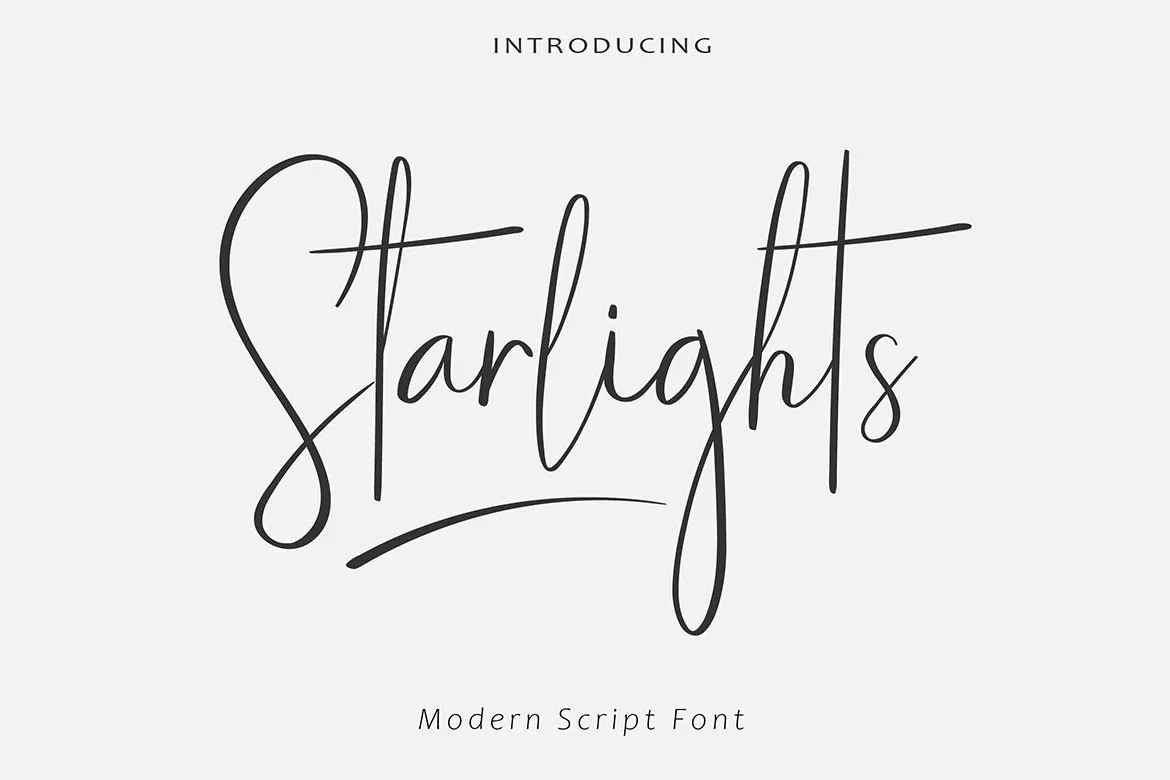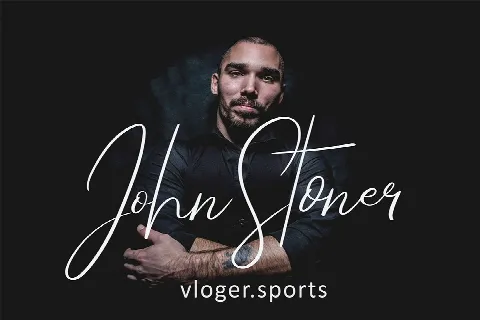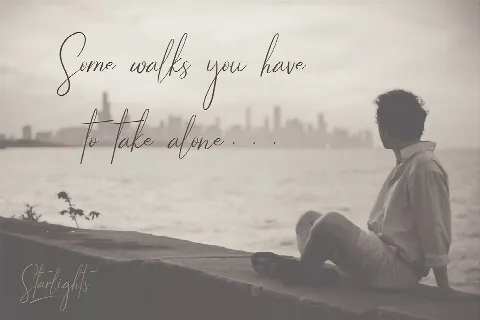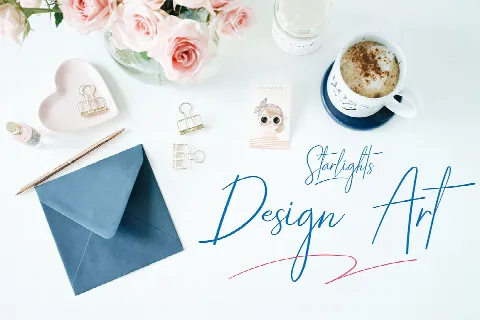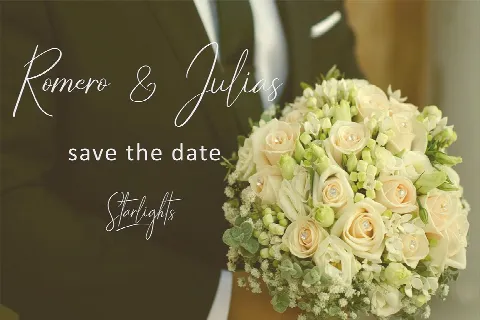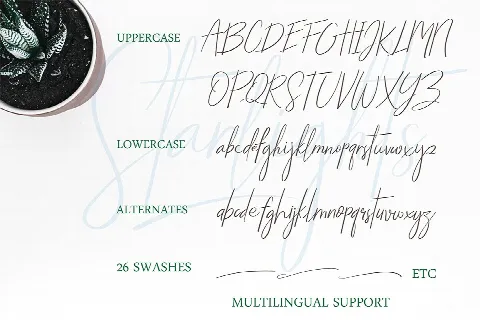
Starlights
We introduce our new product called Starlights.
Starlights is a new classy script stylish handwritten , coming in two Regular and Italic styles. Classic script style make this font looks natural, classy and perfect for any awesome project that need hand writing taste. This is suitable for logos, watermarks on photography, signatures, branding, advertisement, quotes, invitations, stationery, wedding design,album covers, business cards, clothing, magazines, posters, and more!
As usual ,the font comes with many opentype features such as Alternates,Ligature,26 Swashes, and also support multilingual. You can access all those alternate characters by using Opentype or Glyph program such as Adobe Illustrator cs,Adobe Photosop cc, Adobe InDesign, etc.